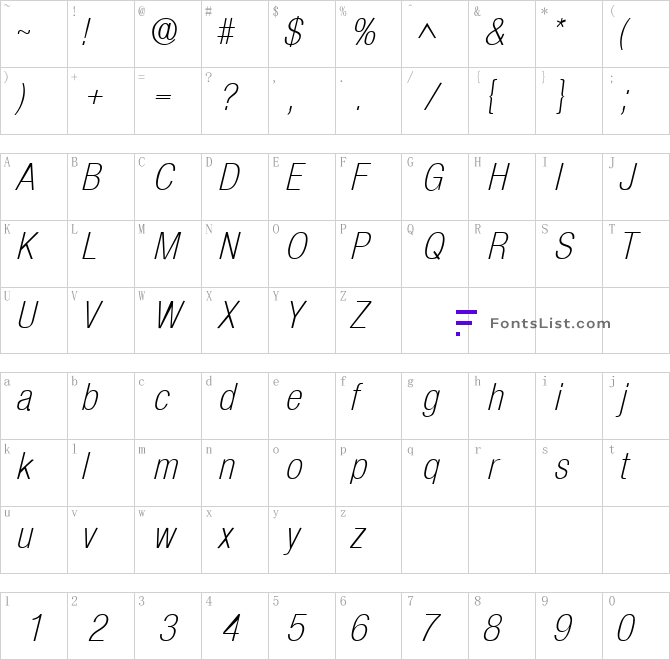
- Font Name:Basic Sans Light SF
Basic-Sans-Light-SF-Italic.ttf is a very beautiful artistic font, Basic-Sans-Light-SF-Italic.ttf is widely used in the design and printing of various books and pictures,Basic-Sans-Light-SF-Italic.ttf has a strong visual impact,Basic-Sans-Light-SF-Italic.ttf is a commonly used font in newspapers, magazines and books, and is used in posters, e-commerce Poster design, store design, logo design, font design and other fields.Basic-Sans-Light-SF-Italic.